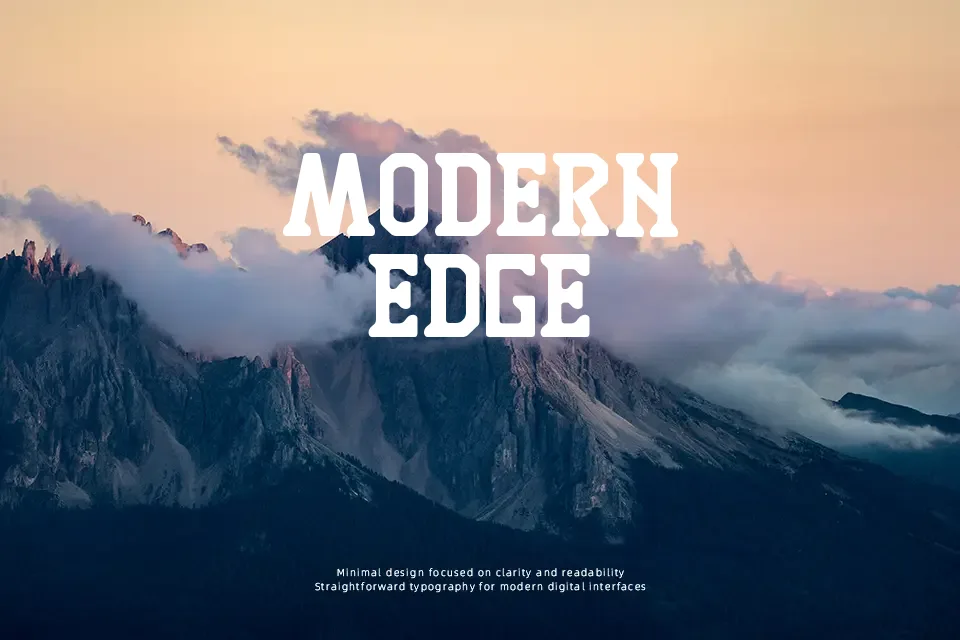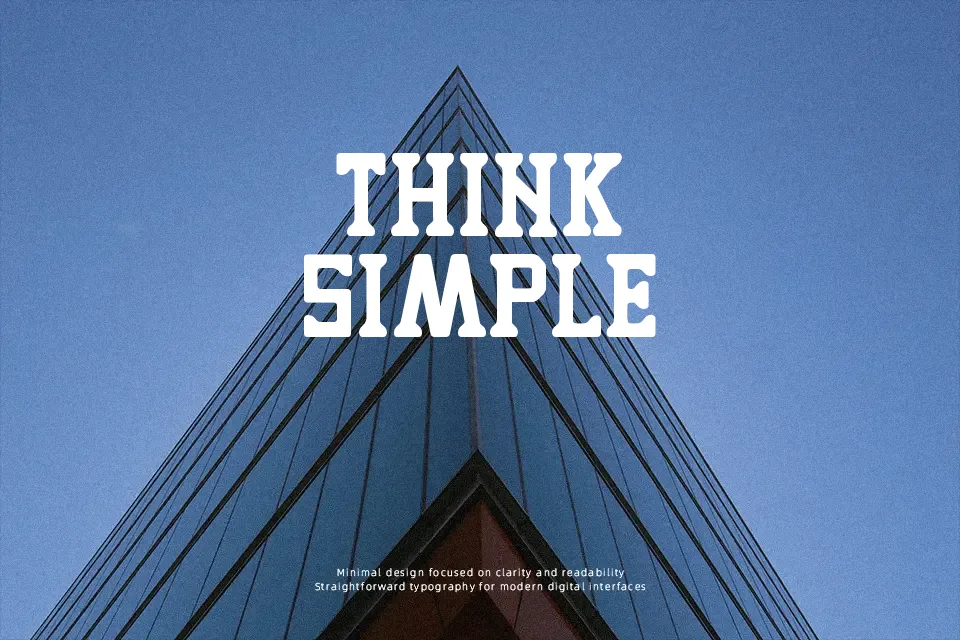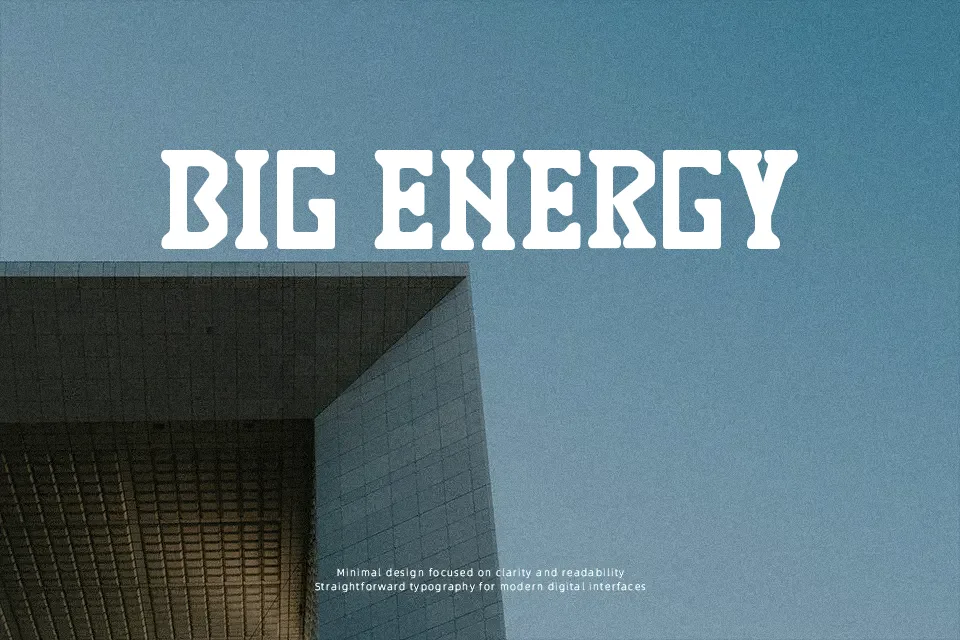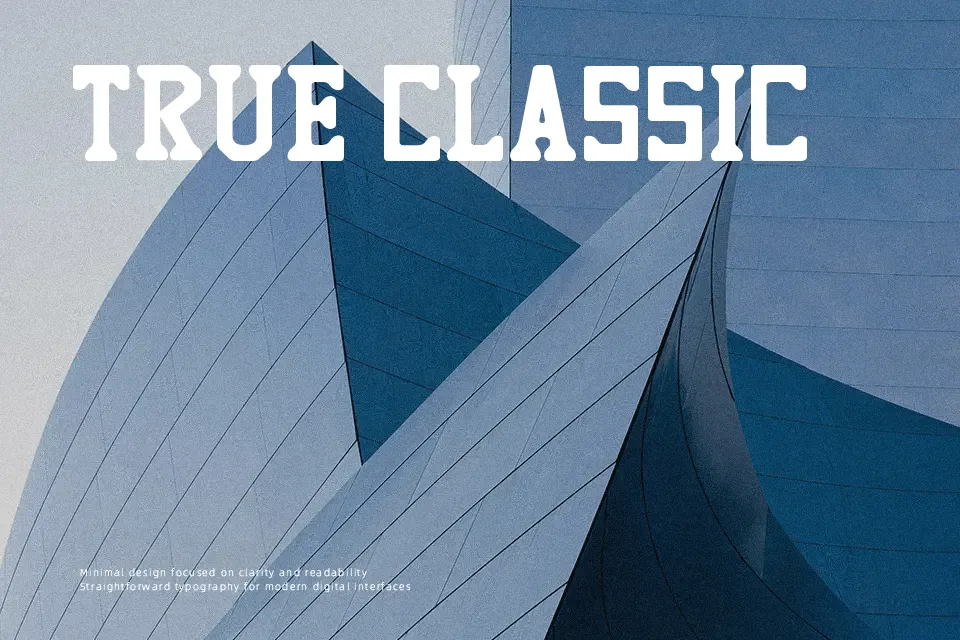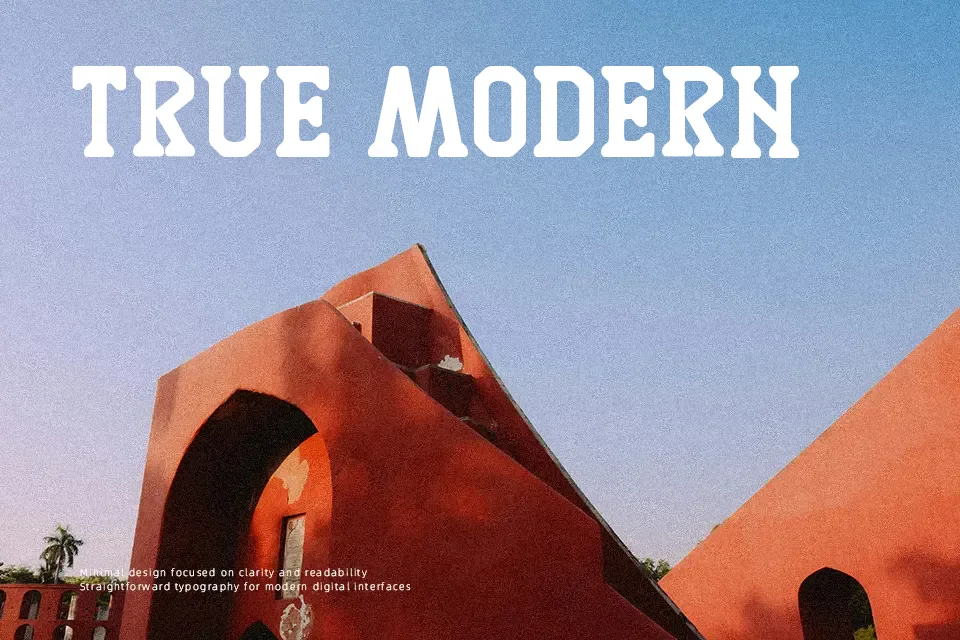
Tigres UANL Font
Designed by Jaime Rangel Castro
Tigres UANL Font performs most effectively when showcased at prominent scale where its substantial mass commands immediate attention. The typeface features heavy, uniform strokes with sharp angles and squared outer perimeters that evoke traditional collegiate jersey lettering. Consistent vertical proportions give each character an imposing presence, while moderate tracking prevents adjacent glyphs from colliding. Readability remains sharp in brief titles and uppercase athletic graphics, but the dense letterforms lose clarity when reduced to smaller text. Consequently, the design is ill-suited for continuous body copy or intricate interface layouts, serving best as an emphatic display solution for tournament posters and varsity team wear.
Best For: athletic apparel graphics, sports team jersey lettering, stadium event poster headlines
Not Ideal For: continuous book paragraph text, dense mobile interface labels, legal documentation
Perfect for headline, logo, and poster, with a bold and display style.